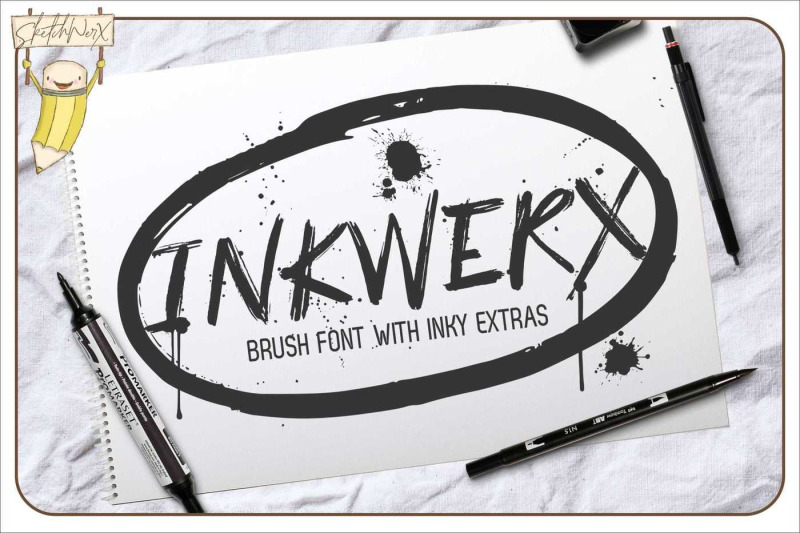
Introducing the bold, messy and fearless, InkWerx font & Extras! InkWerx is a punchy uppercase font that comes in 2 sets of uppercase letters with different splatter, this helps your letters look that little more original. Also included is a complimentary dingbat font with a set of 26 swashes, drips, and splatter, just what you need to bring your design to life. These will also be available as transparent PNG's, vector EPS, Ai & CDR format. This font comes in both OTF and TTF versions, and full European language support. This beautiful freebie is brought to you by SketchWerx. Only available for a week! Don't forget to tag your creation @TheHungryJPEG on Instagram and get a chance to be featured!